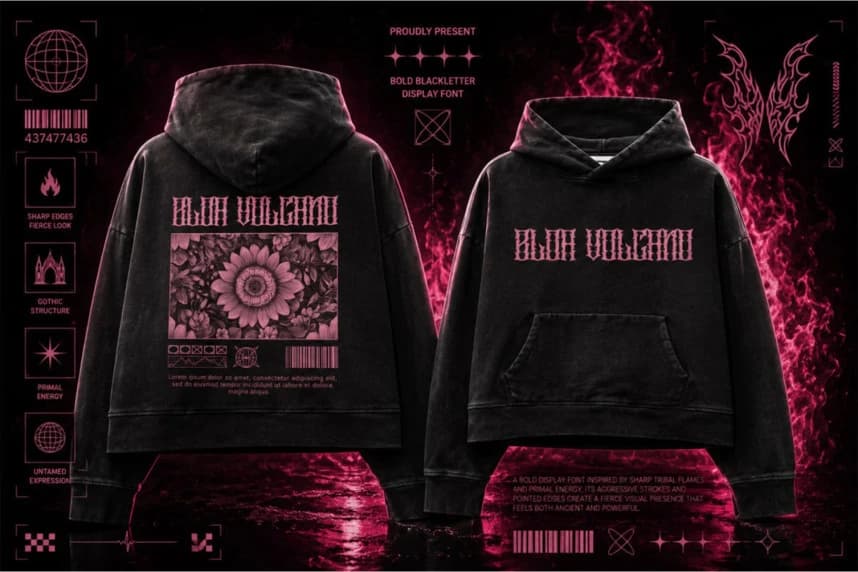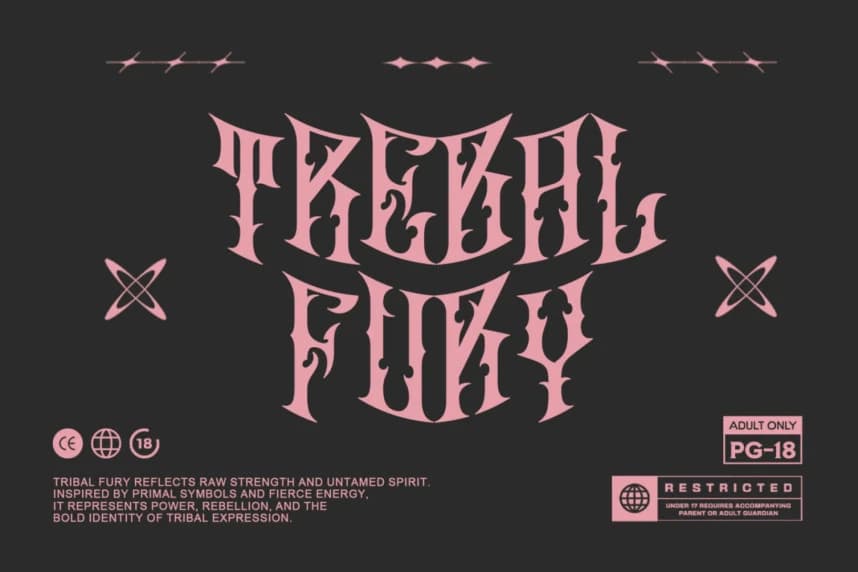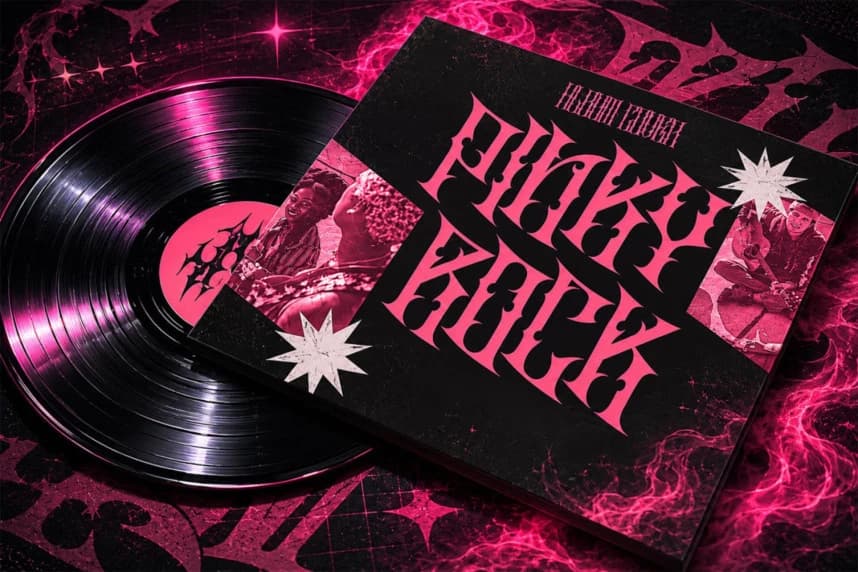
Scarnix Font is an aggressive blackletter display font born from primal fire, sharp tribal energy, and gothic domination. Crafted with razor-edged strokes, fierce curves, and a powerful symmetrical structure